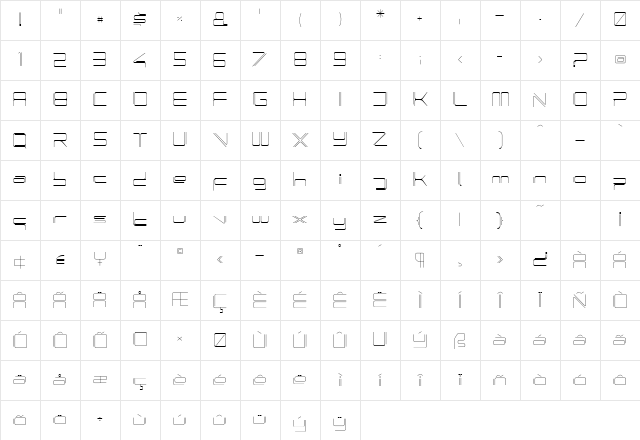
PhutureRndOpen Regular
Design Context for PhutureRndOpen
PhutureRndOpen is a composed and adaptable typeface that performs quietly and consistently across a wide range of design contexts.